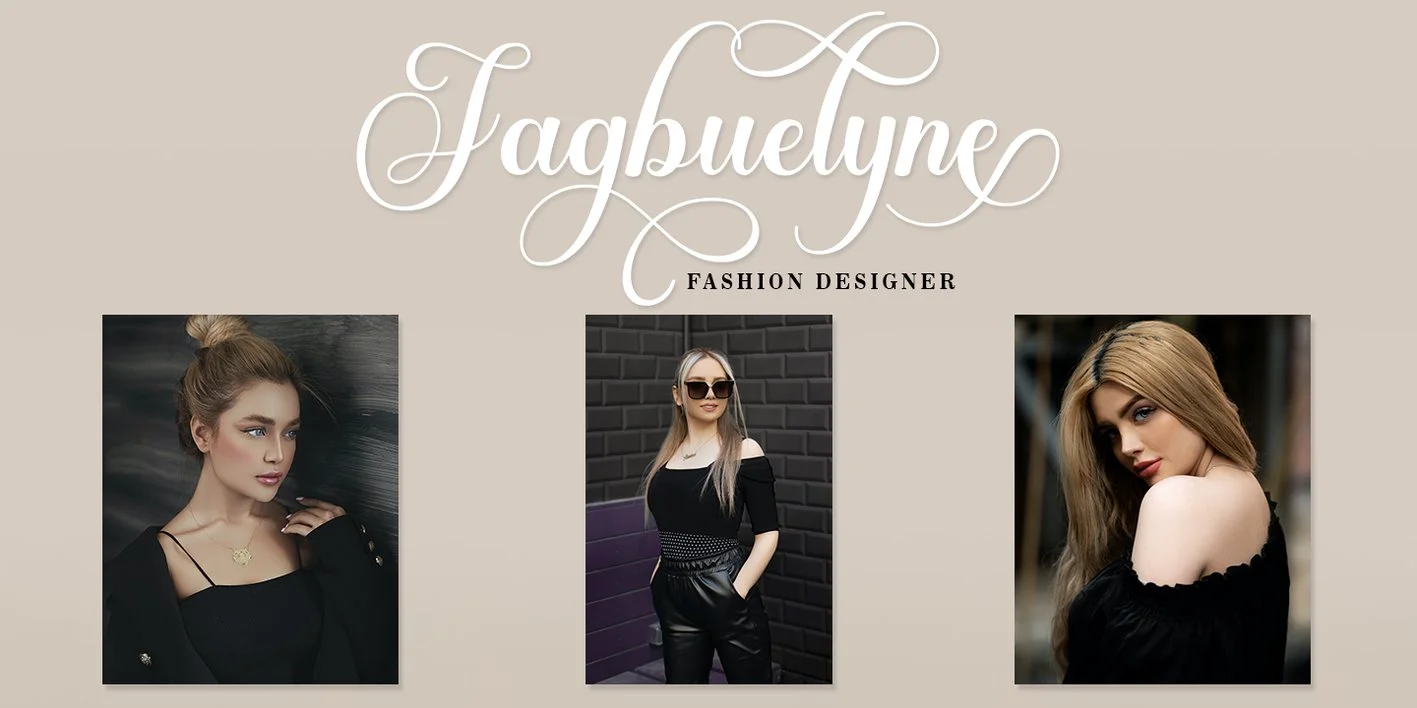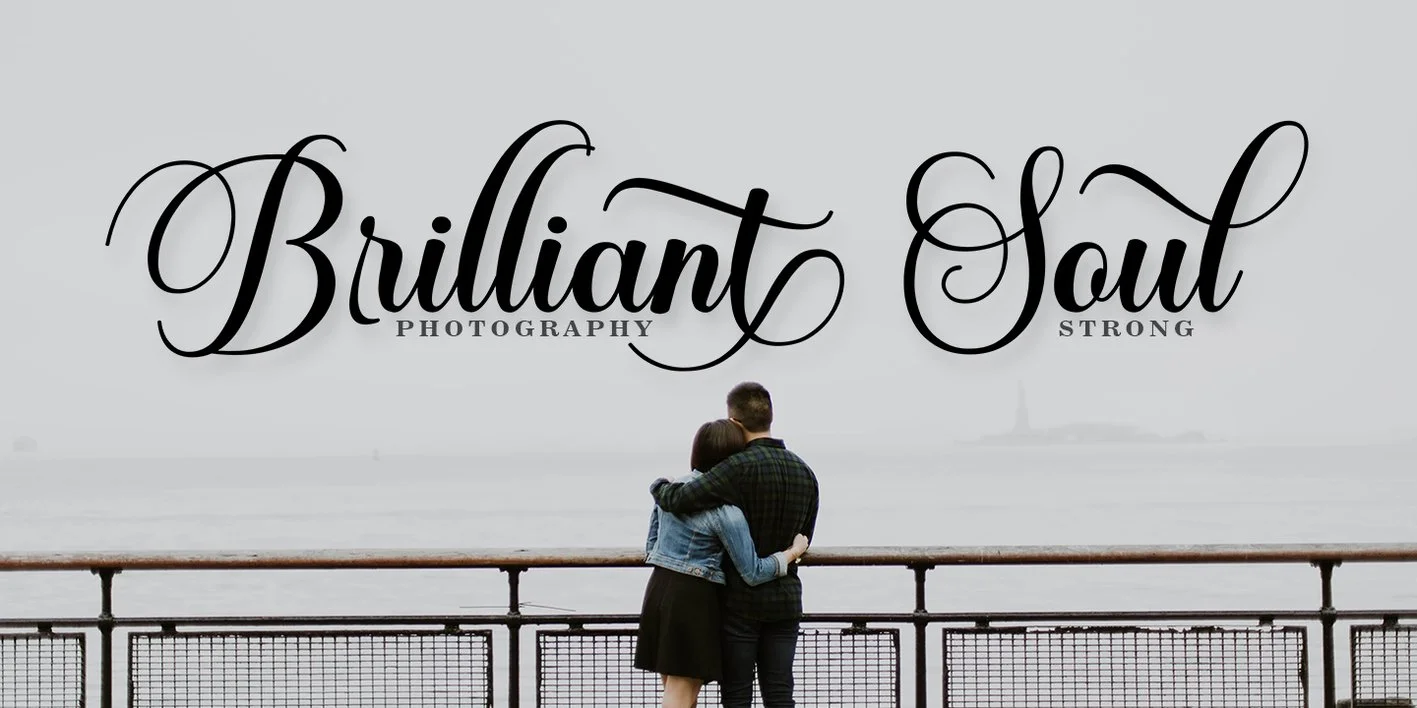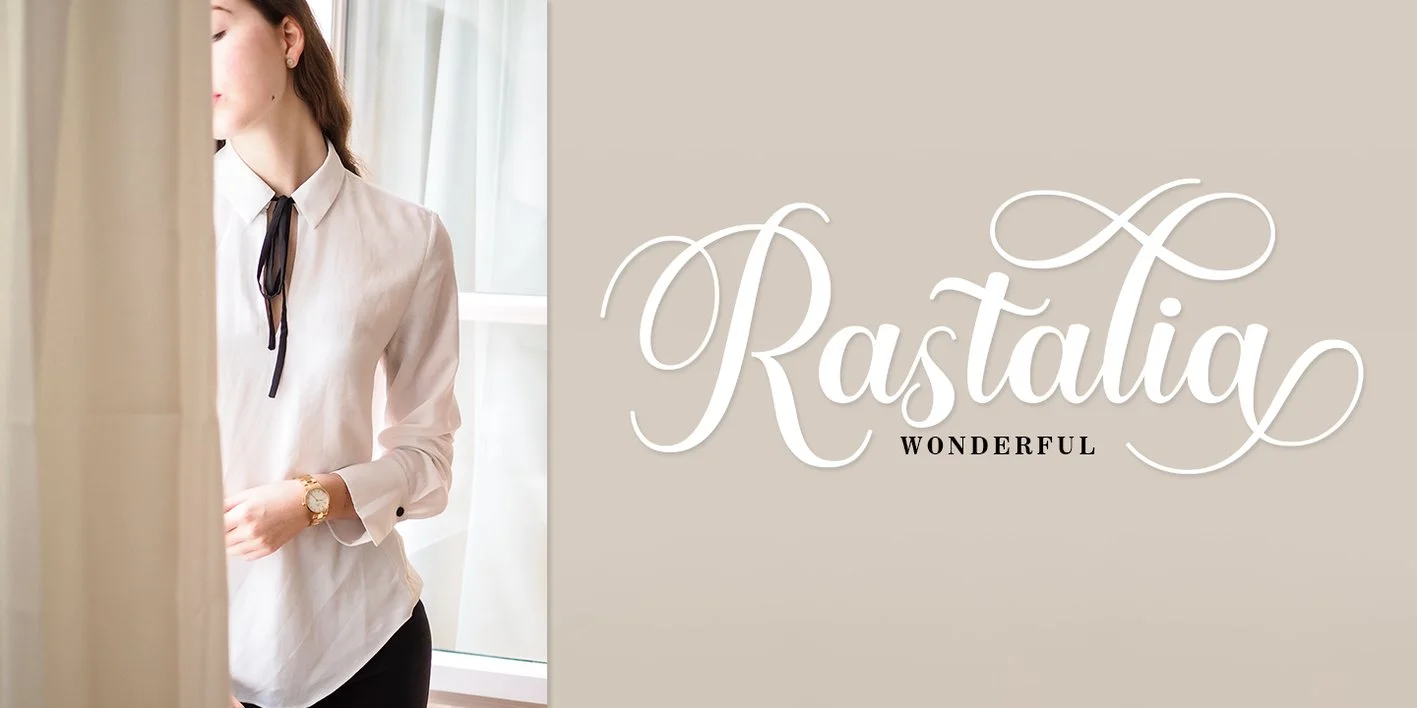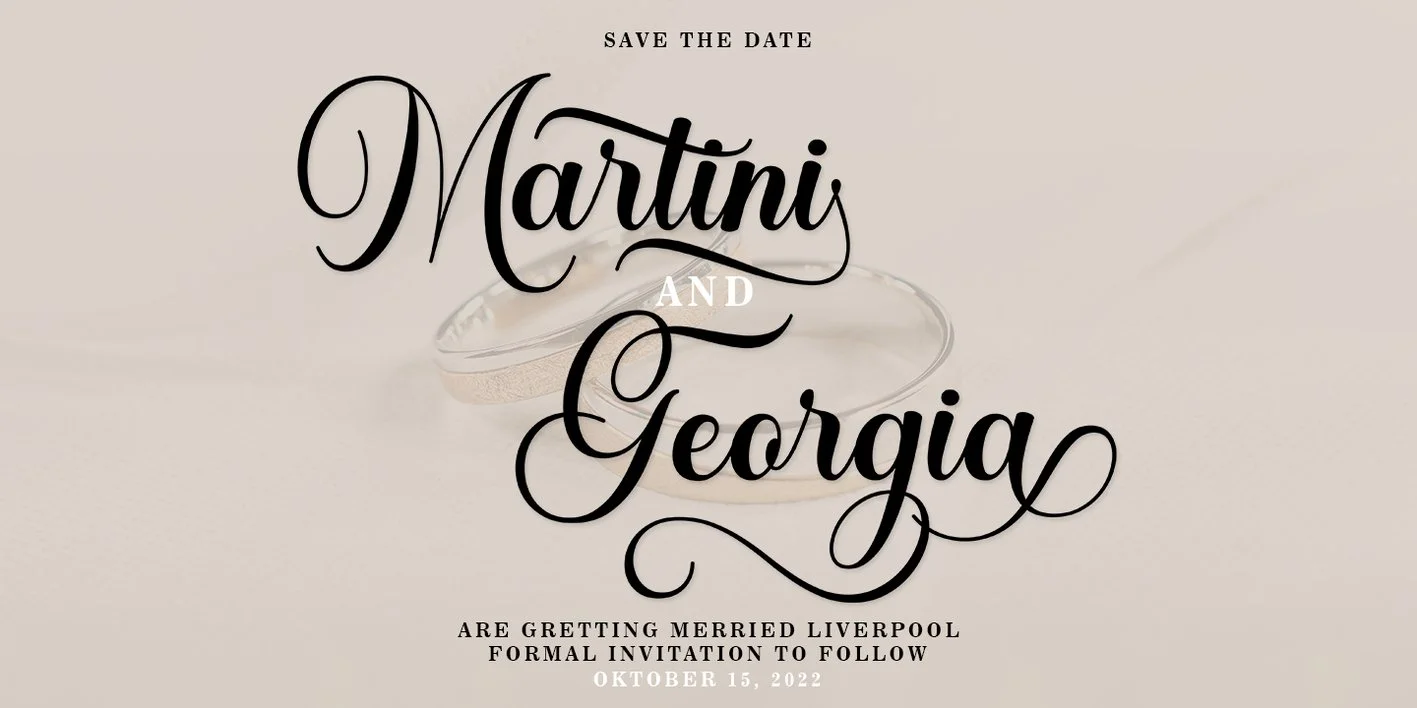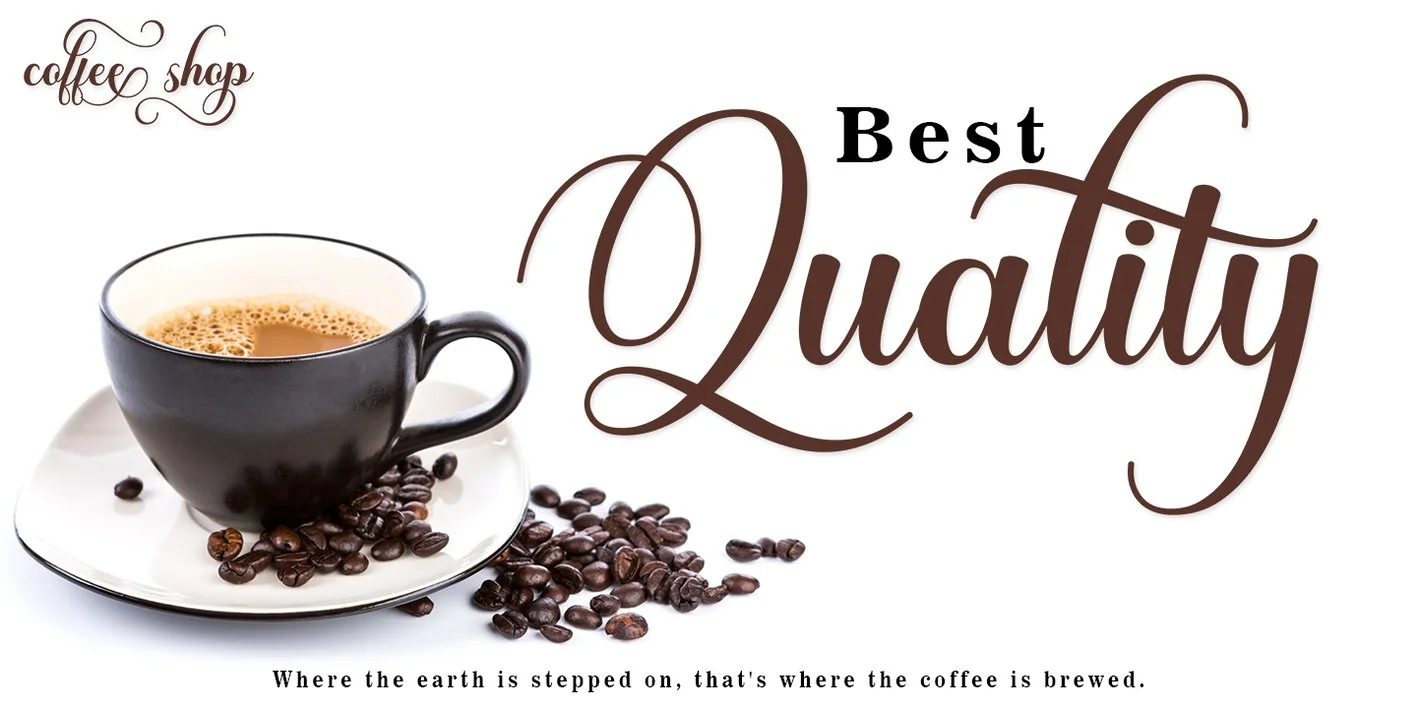
September Rain Script Font
There is a particular satisfaction in finding a typeface that delivers distinctive character without sacrificing readability without compromise. September Rain Script consistently provides it. The typeface brings an elegant, calligraphic sensibility to a broad range of creative disciplines, with controlled contrast that rewards close inspection that holds up whether the work is print-first or screen-first.
In practice, September Rain Script proves particularly effective for product labels, advertising campaigns, environmental graphics, brand identity systems, bridal materials. Designers reaching for it find that the type decisions feel resolved rather than laboured — a useful quality when client timelines are tight.
The range of applications extends to web design, feminine branding, packaging design, luxury stationery. That breadth is deliberate: the proportions and spacing were stress-tested across a wide range of mock briefs before the typeface was finalised.
At smaller sizes the design retains its character without becoming cluttered. This resilience across scales makes September Rain Script equally suitable for a business card and a billboard — a useful property when assets must scale across a campaign.
UX designers establishing typographic systems for digital products find September Rain Script a reliable choice for projects that demand both personality and restraint. The design avoids the self-conscious quirkiness that dates quickly, settling instead for considered distinctiveness that holds up over time.